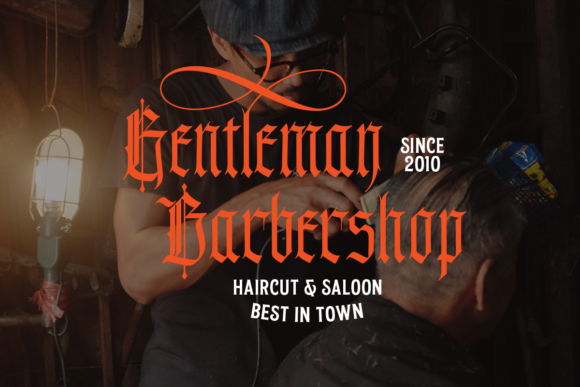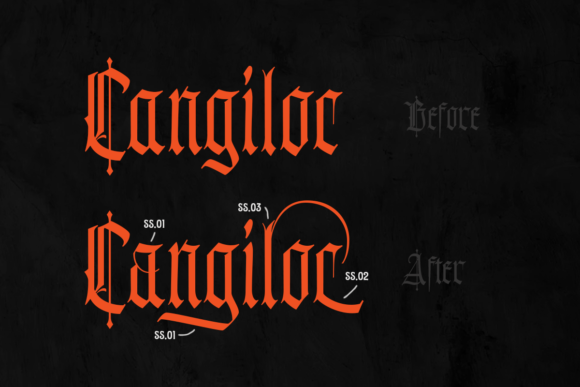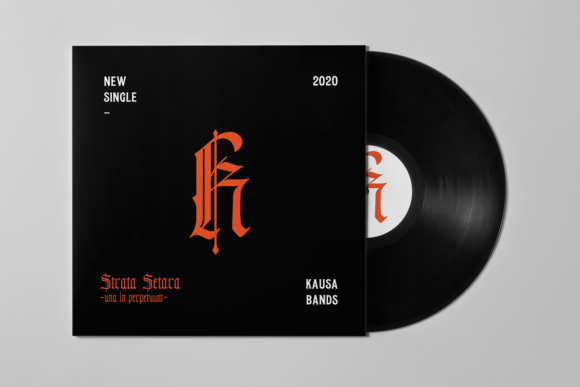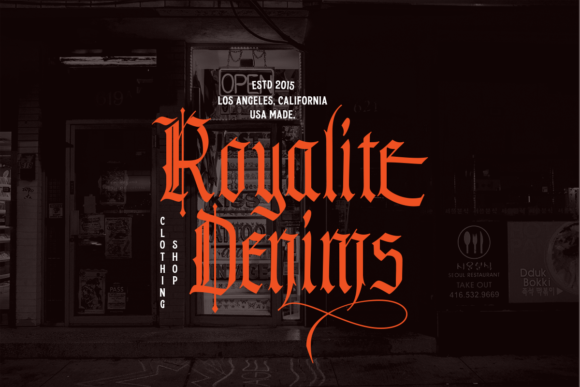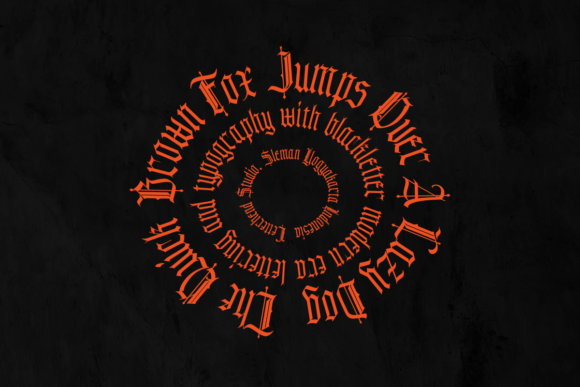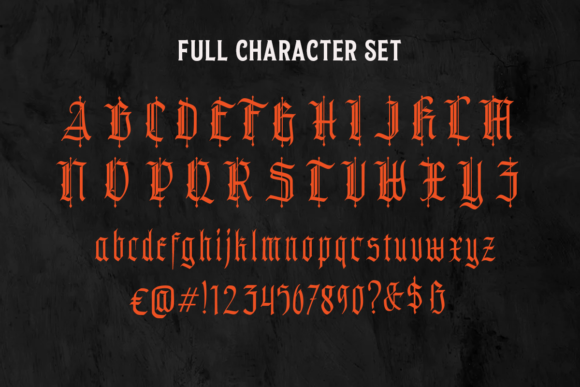
Bring Your Designs to Life with the Timeless Charm of Bullgine Font
As a designer, you’ve been there – staring at a blank canvas, trying to capture the essence of your idea, but struggling to find the perfect font to bring it all together. It’s a moment of creative frustration, but also an opportunity to discover something truly special.
Enter the Bullgine Font, an elegant and authentic blackletter that adds a touch of sophistication to any design. Whether you’re crafting a wedding invitation, a logo, or a typography-based art piece, this unique font is sure to make your work stand out. With its rich history and timeless charm, the Bullgine Font is a valuable addition to any designer’s toolkit, allowing you to create pieces that are both visually stunning and emotionally resonant.
Bullgine Font Key Features
- Size: The font family includes 4 weights (Thin, Light, Regular, and Bold) for versatile typography options.
- Resolution: The font is optimized for high-resolution displays (Retina and 4K) to ensure crisp and clear text rendering.
- Unique Characteristics: Bullgine Font features a unique blend of modern and vintage elements, making it perfect for creative and artistic projects.
- Scalability: The font is designed to be highly scalable, ensuring that it looks great in various font sizes and resolutions.
Bullgine Font Review
I recently had the chance to work with the Bullgine font, and overall, it was a mixed bag. Let’s start with what works well:
- ✨ Unique aesthetic: Bullgine has a distinct, playful feel that can add a lot of character to your designs. Its bold, whimsical style is perfect for titles and headings.
- ✨ Versatility: The font comes in a range of weights, from light to bold, making it suitable for a variety of applications, from body text to display typography.
- ⚠️ Readability issues: In certain situations, the font can be difficult to read, especially in smaller sizes or when used for extended blocks of text.
- ⚠️ Limited language support: I encountered some issues with Bullgine’s support for non-English languages, which may be a concern for global design projects.
Overall, I’d say that Bullgine is a solid choice for designers who want to add some personality to their work. While it may not be the most practical or versatile font, its unique style can be a great asset in the right situations. With some careful consideration of its limitations, I think Bullgine can be a valuable addition to any designer’s toolkit.
Tips for Getting the Most Out of the Bullgine Font
1. Use the Bullgine font for bold and eye-catching headings.
2. Pair the font with other bold fonts for a striking contrast.
3. Experiment with different font sizes and styles to achieve the desired effect.
1. Headings and titles for marketing materials and advertisements.
2. Branding and logo design.
3. Social media graphics and posts.
4. Infographics and data visualizations.